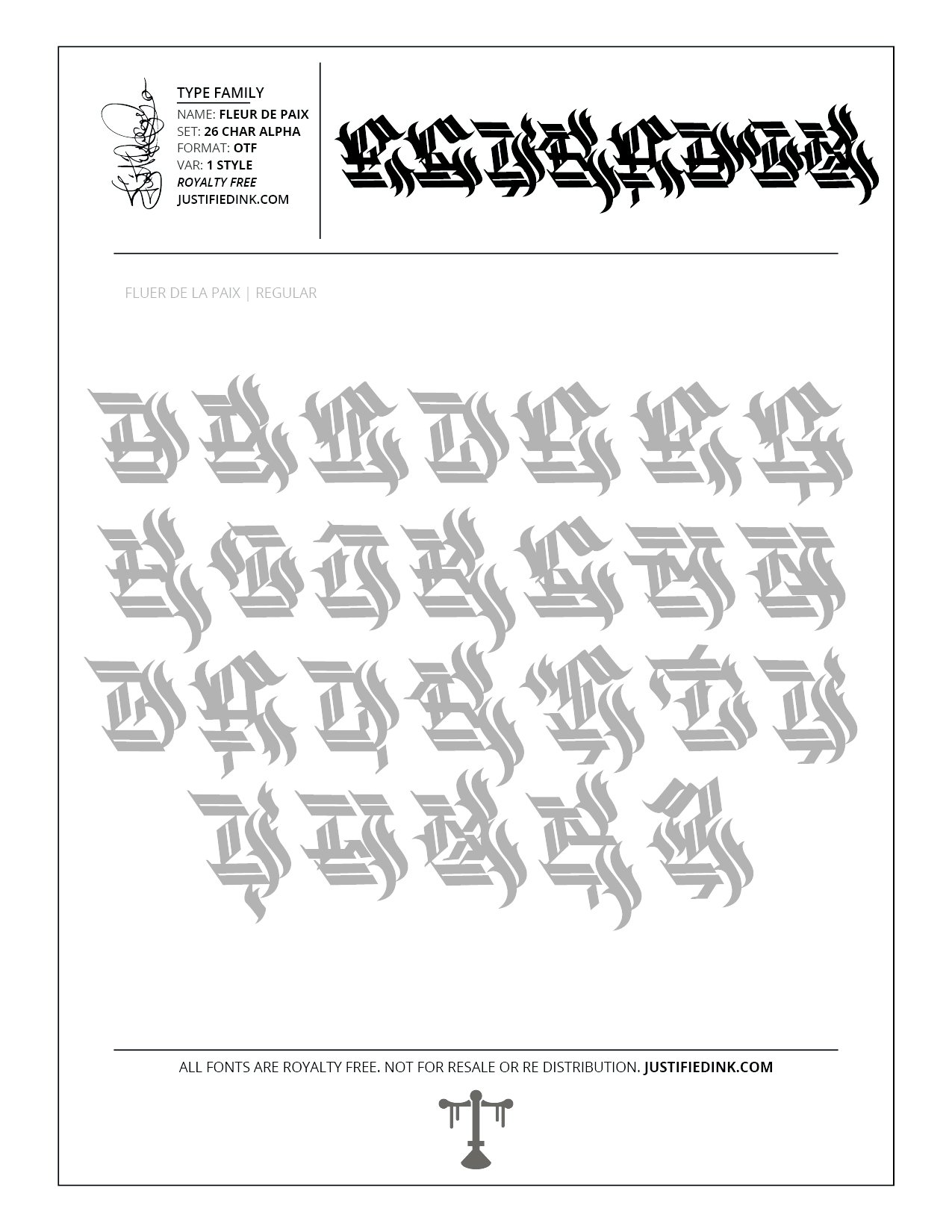
FleurPaix (1 style) - Custom Font by Justified Ink
The flower of peace, expressed through french terms, is a brutal yet beautiful blackletter style font. The impermanent nature of the flower is as representation for the delicate seasonality of peace. Each generation plants seeds for the next to have another chance at peace.
This font is part of the collection by Justified Ink, called Blackletter II. After 15+ years creating, I began to focus on building personal libraries of my work. The Blackletter II Collection was created through writing page after page, and countless hours over a 2 year span of daily practice. Each font from this collection has been hand drawn, manually vectored, and custom set as a type-able font. It comes in a full set of 26 char alpha. Each font family has variations in styles and/or non-alpha chars.